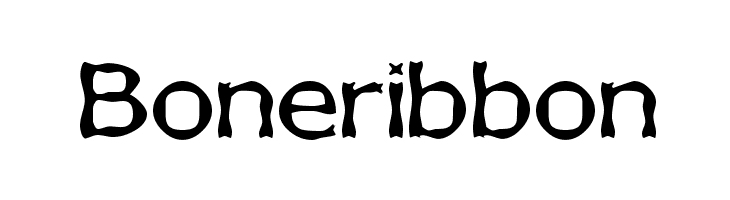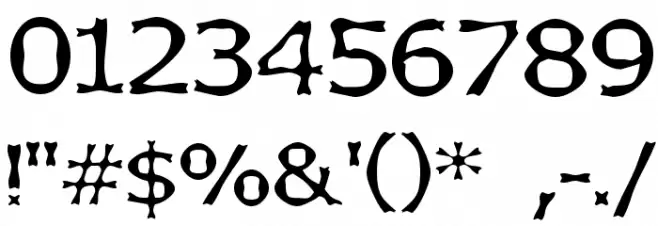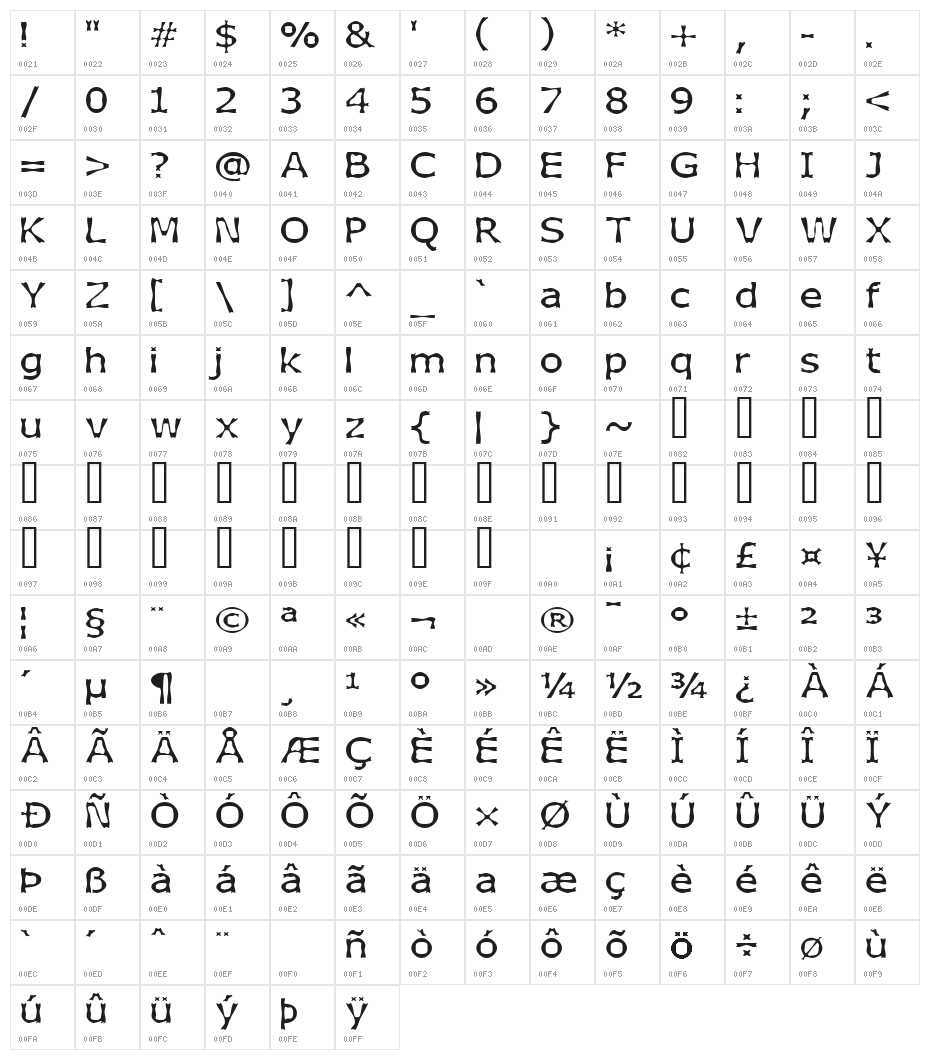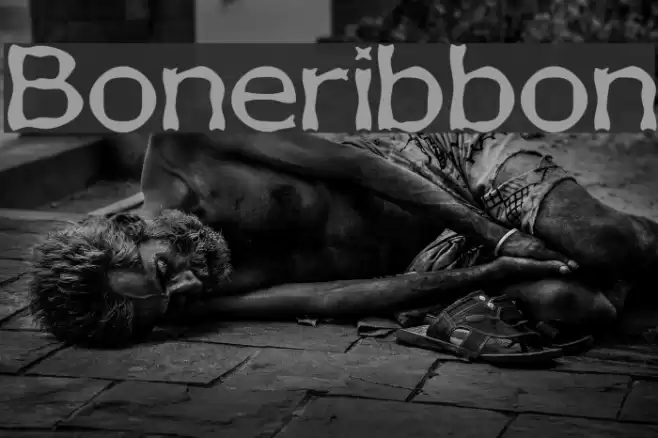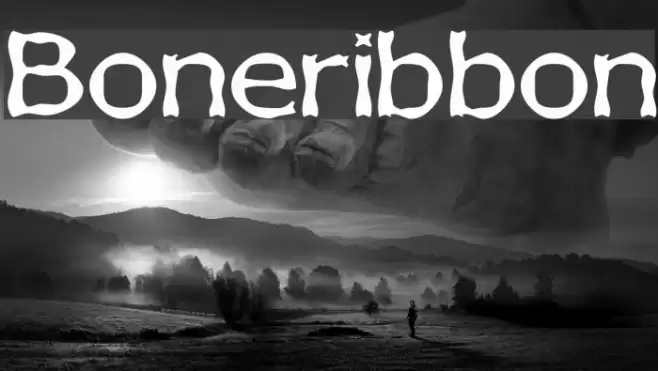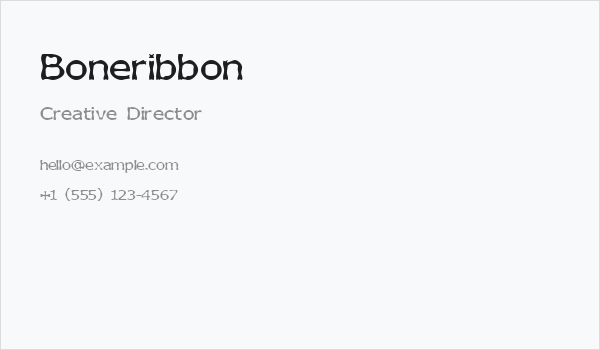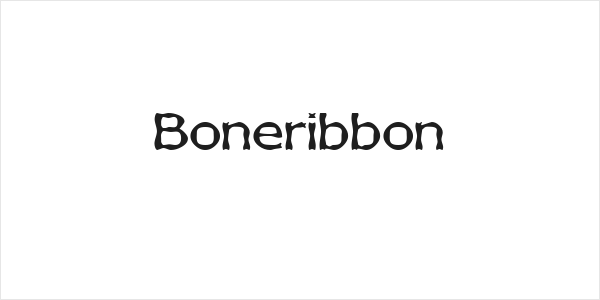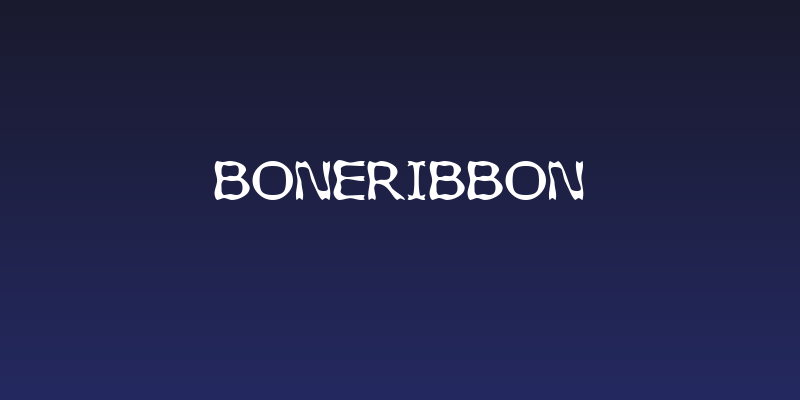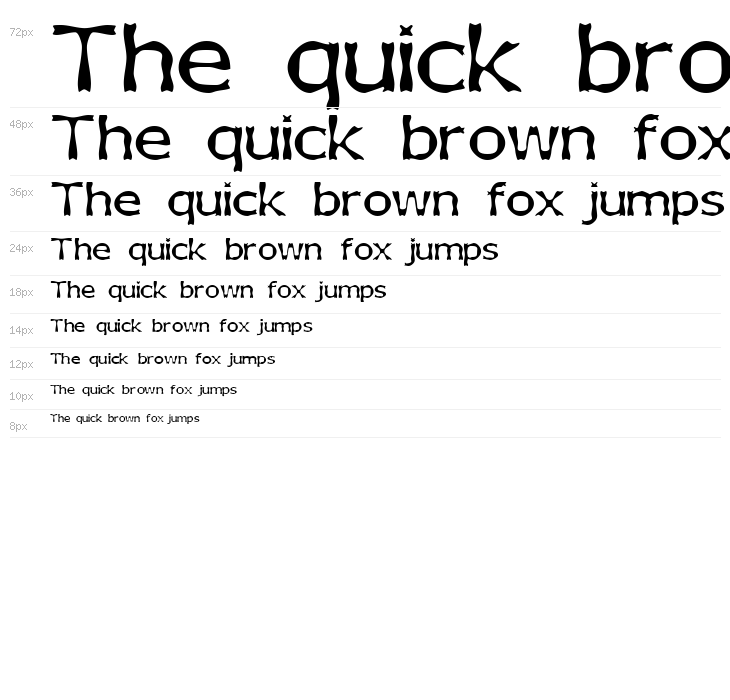
Boneribbon Font
Boneribbon Description
This font features a unique and playful design with a bone-like structure, giving it a distinctive and quirky appearance. The characters are crafted with irregular, organic shapes that mimic the look of bones, creating a whimsical and slightly eerie aesthetic. The uppercase and lowercase letters maintain a consistent style, with each character exhibiting a hand-drawn quality. The numbers and special characters follow the same theme, ensuring a cohesive look across all elements. This font's unusual design makes it stand out, offering a creative and fun option for various design projects.
| Overall Style | Whimsical |
| Use Case | Logos, Posters, Themed Events |
| Proposed Projects | Ideal for Halloween-themed designs, children's book covers, playful branding, and creative posters. |